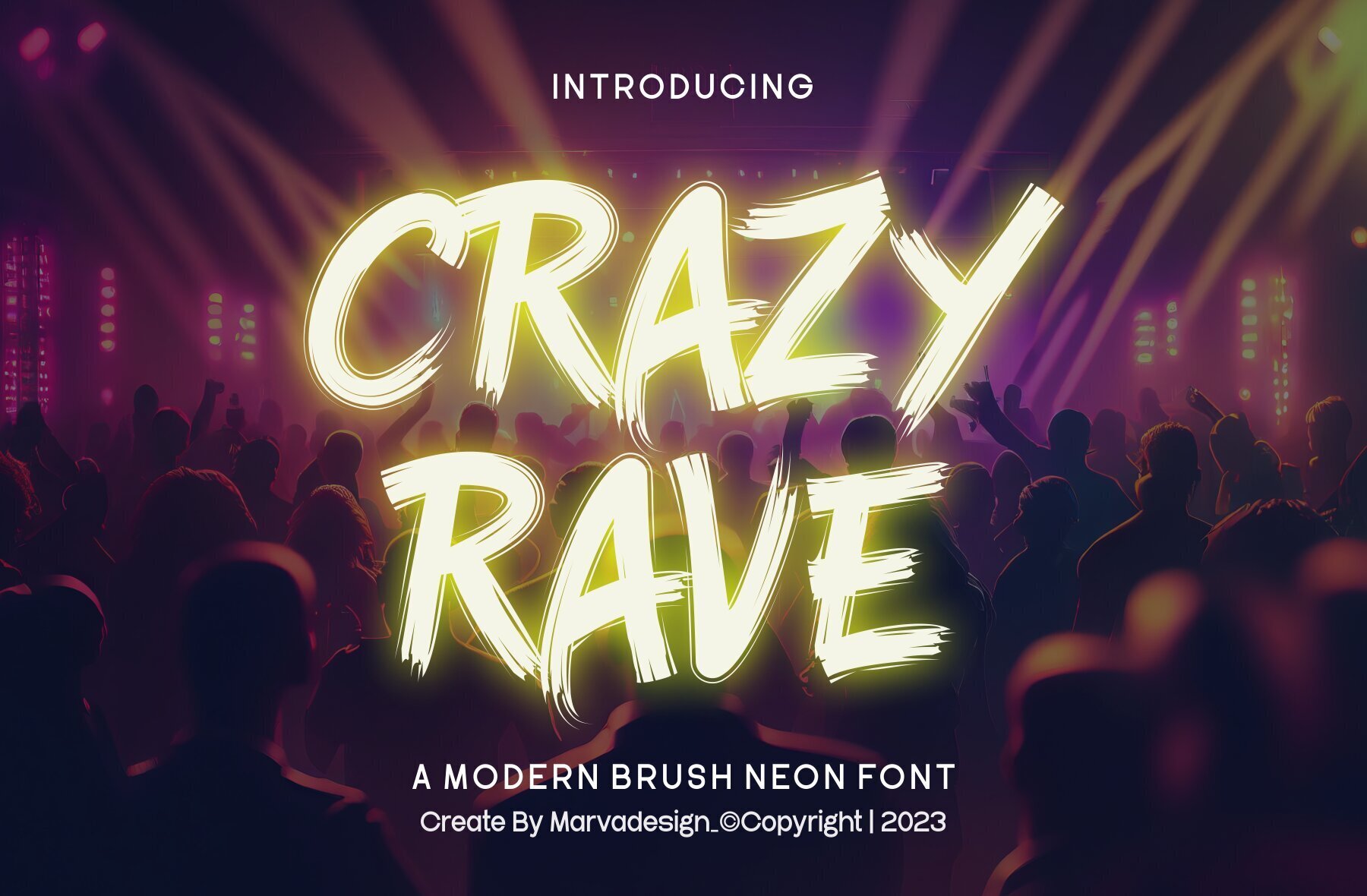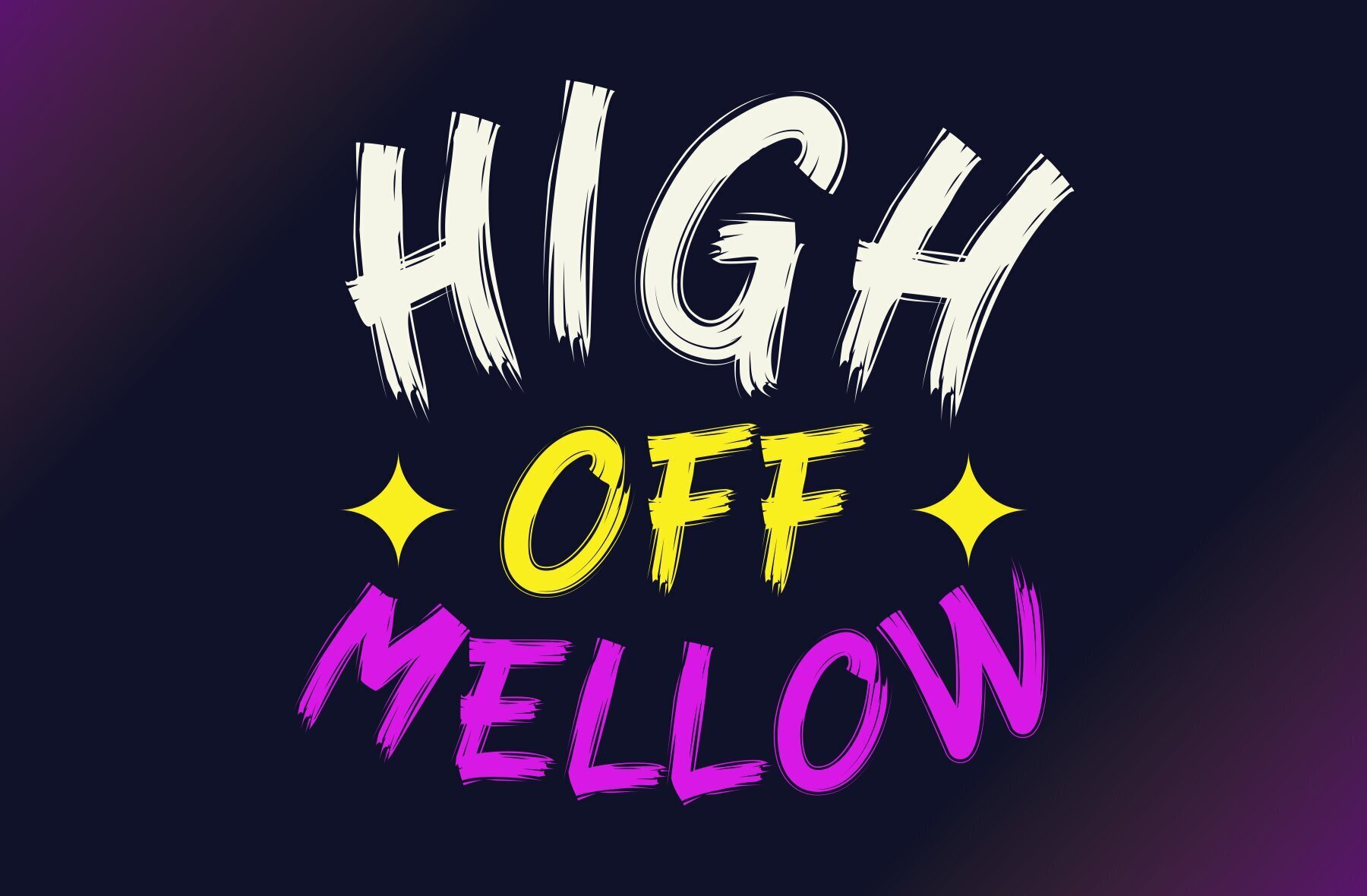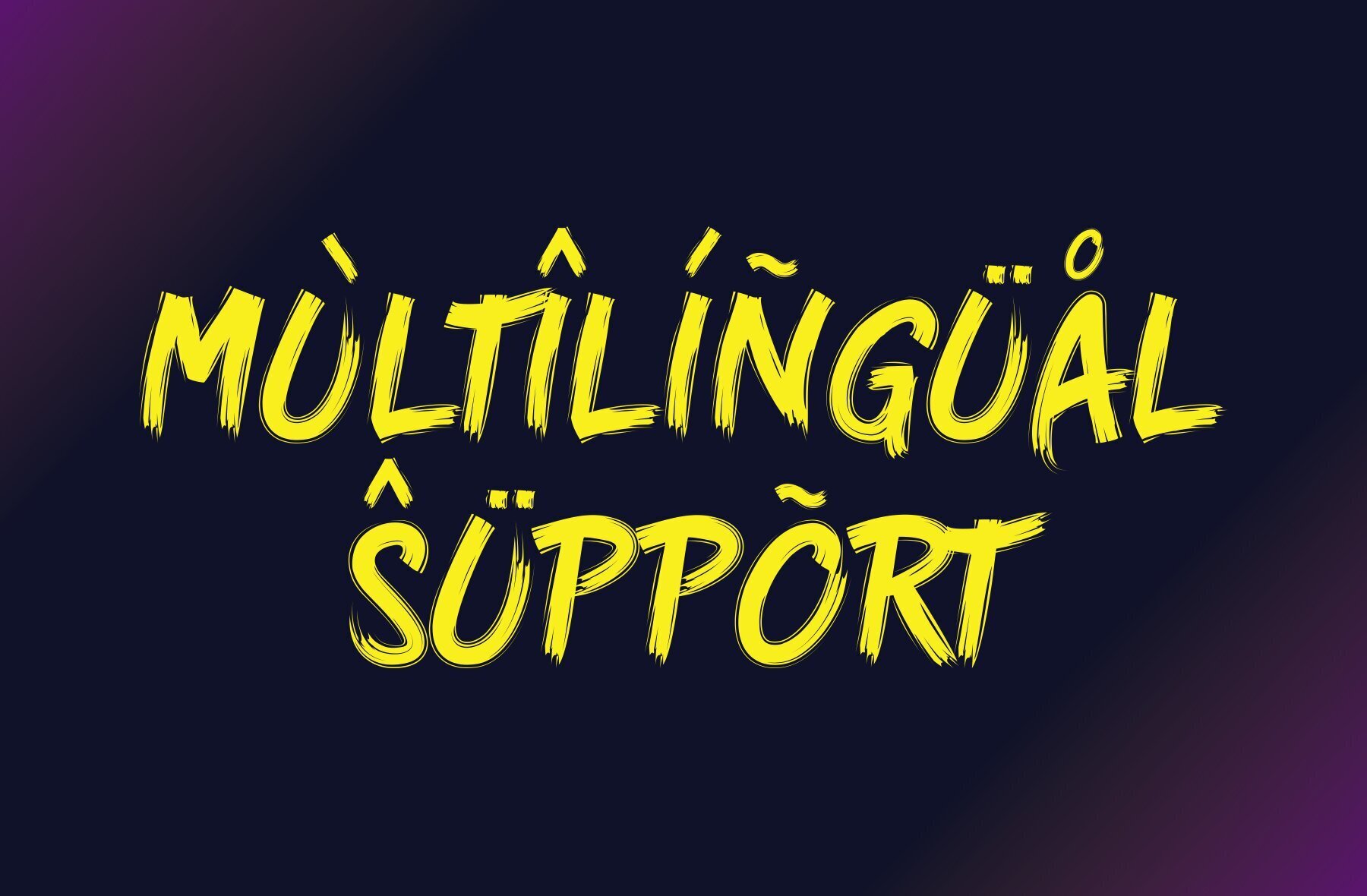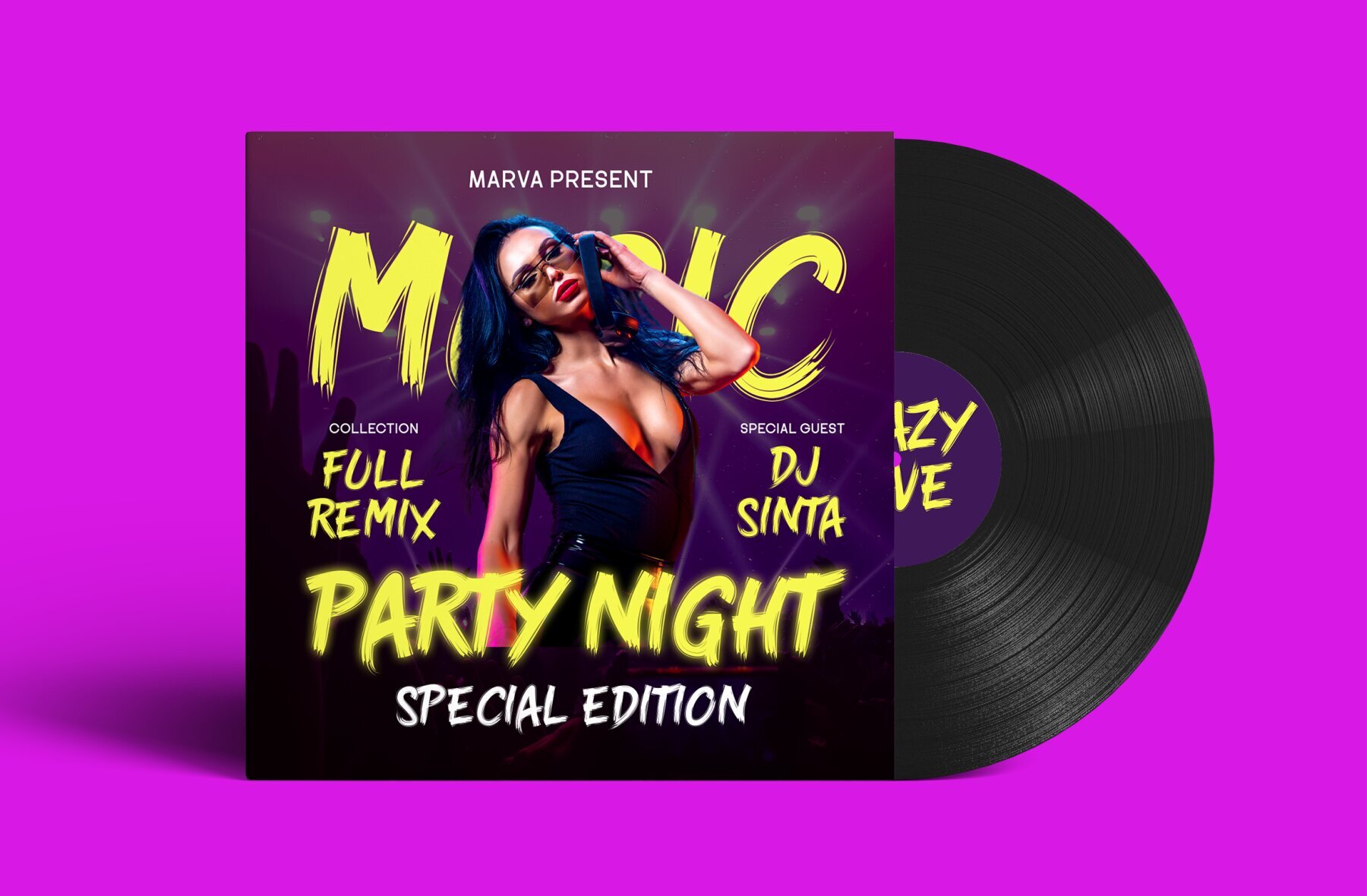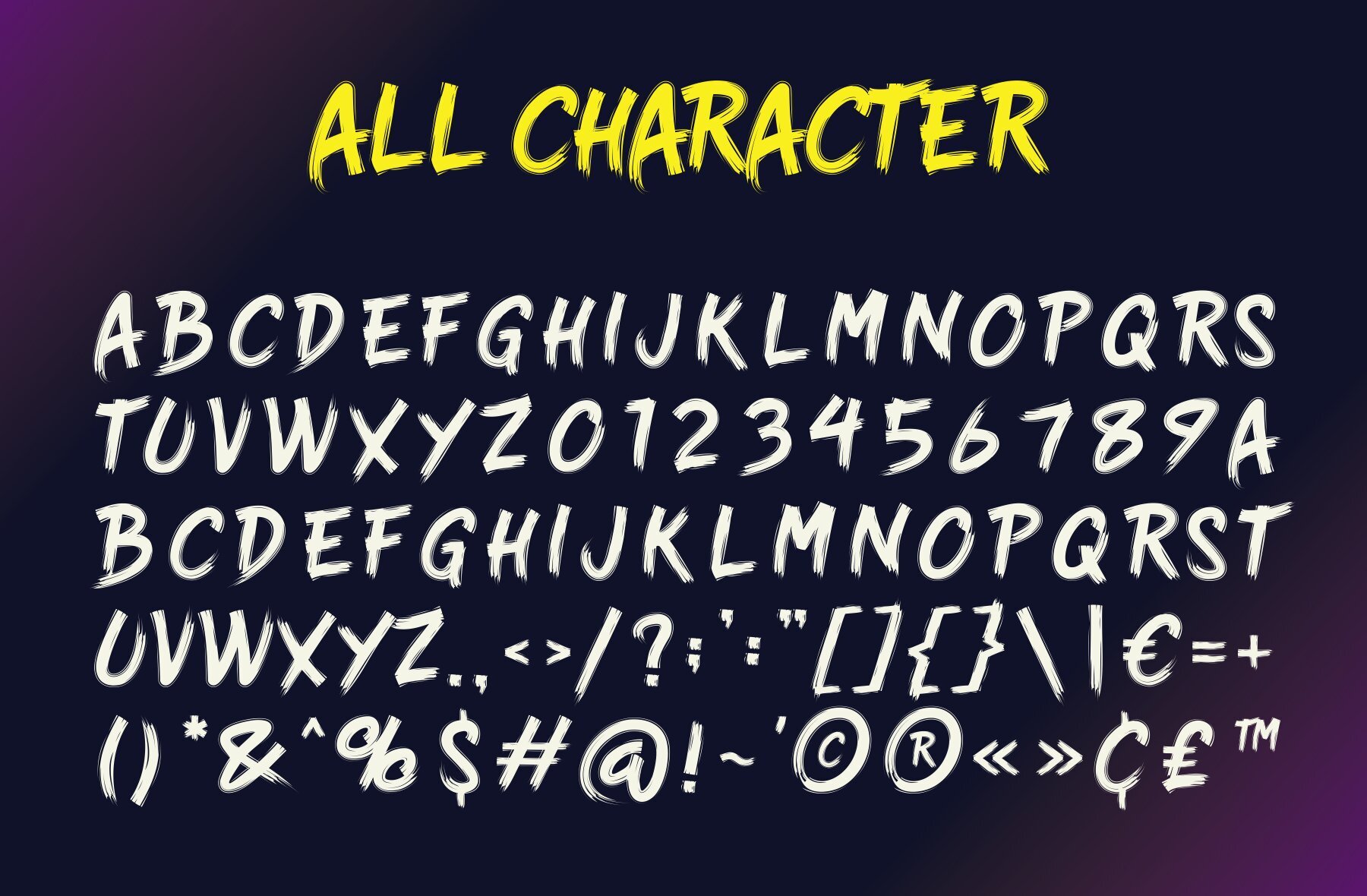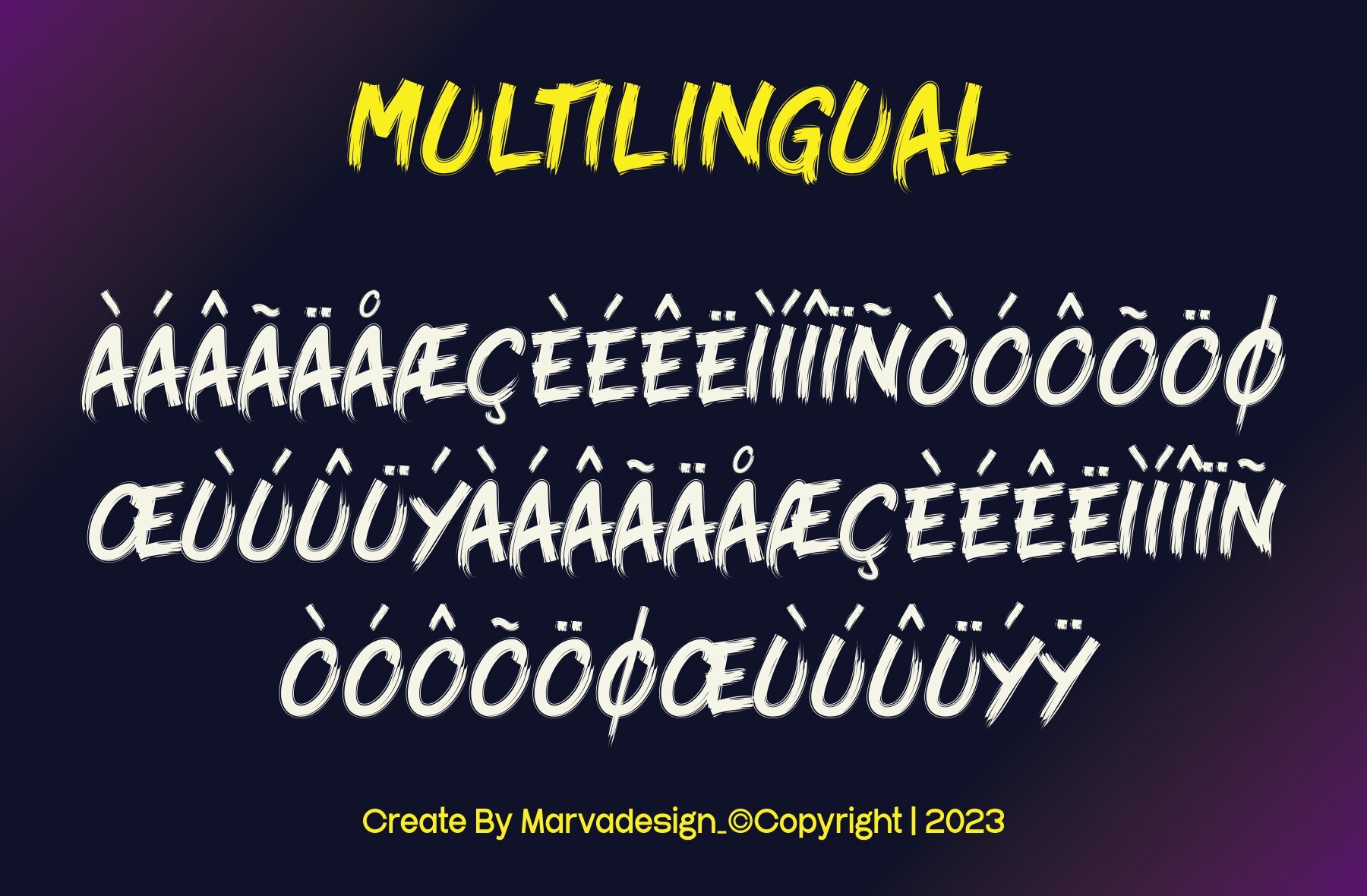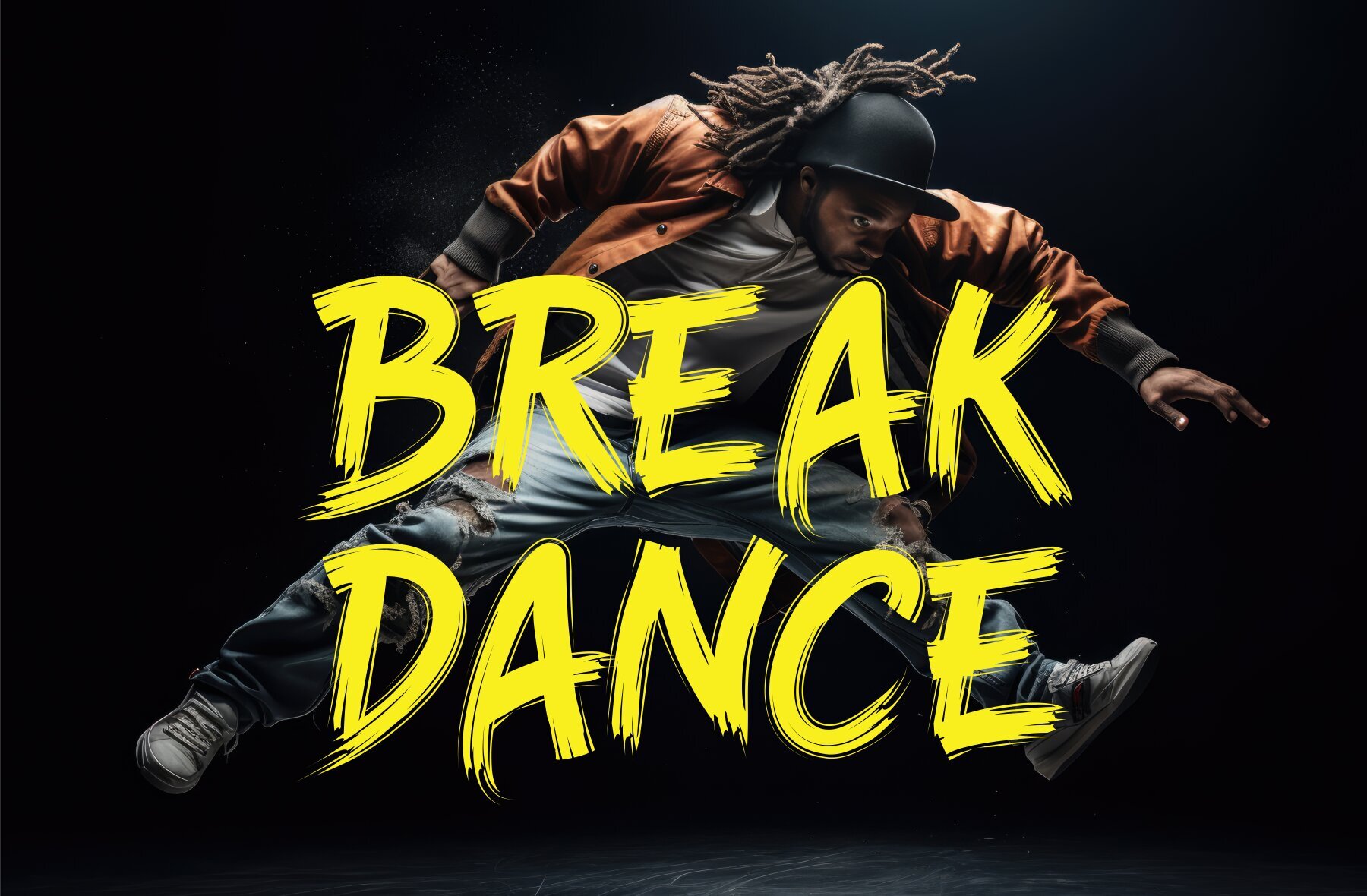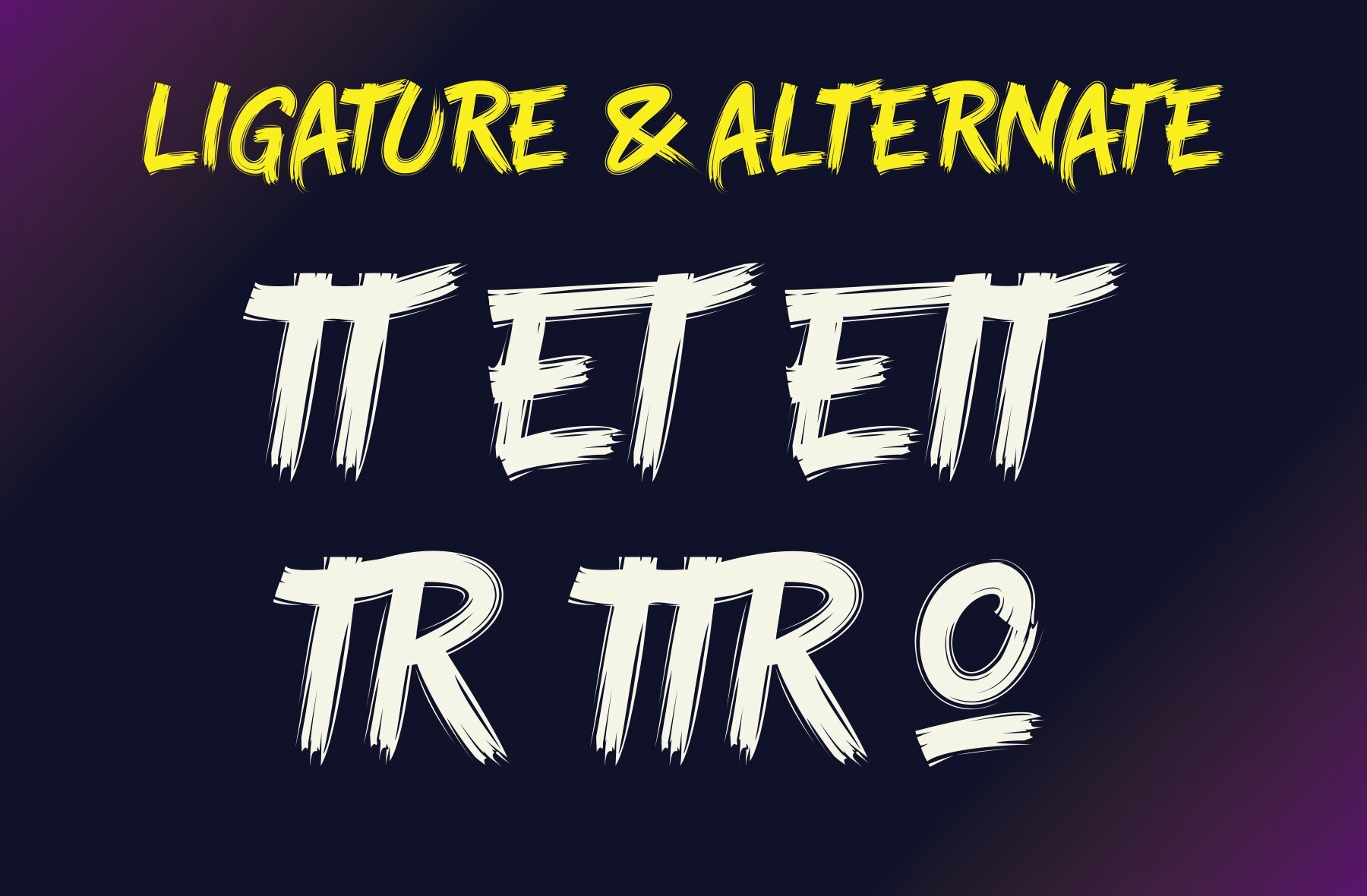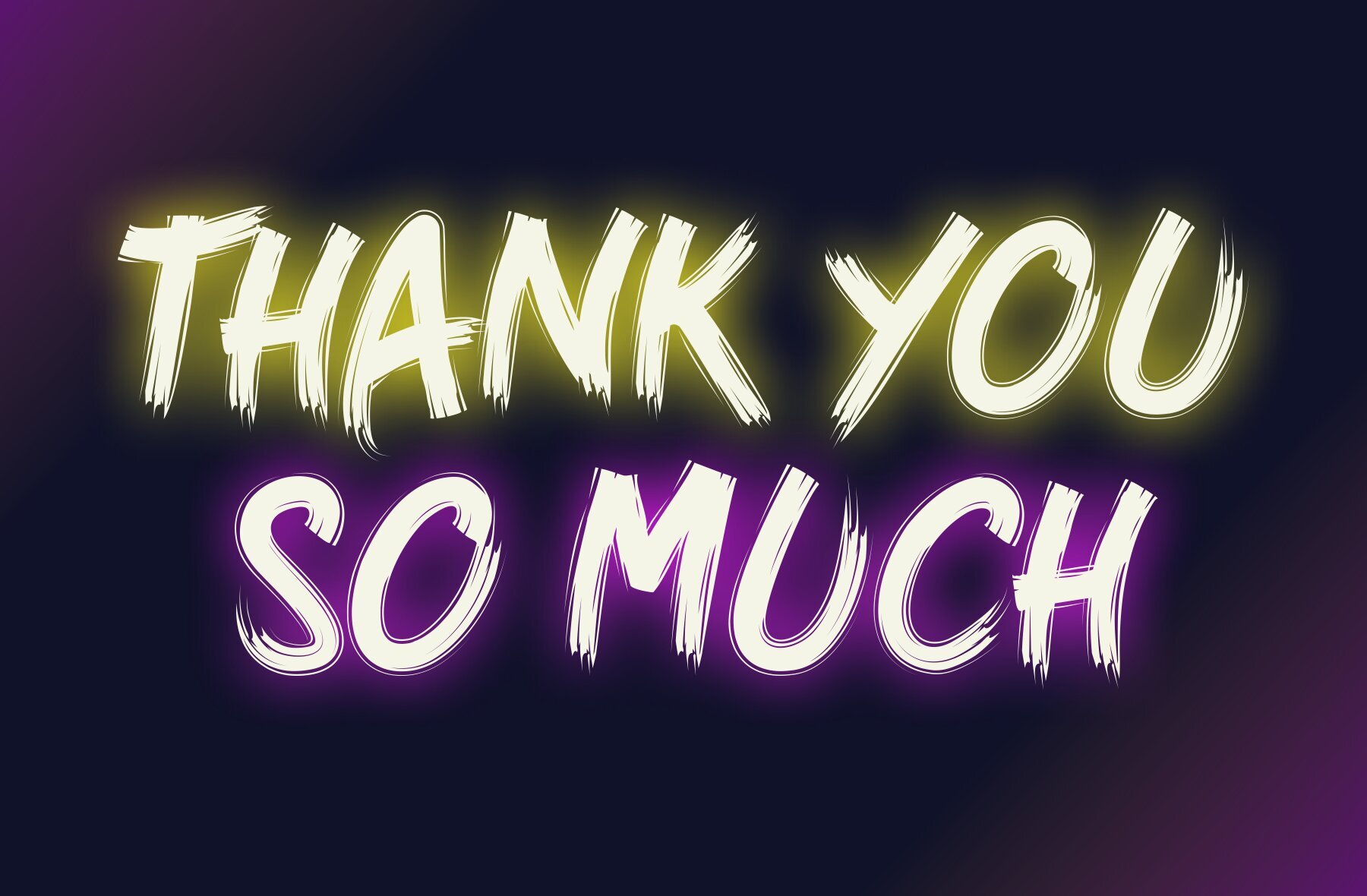
Crazy Rave: Modern Brush Neon Font
Crazy Rave is an authentic display font designed for a modern touch with its unique brush neon style. This font is perfect for diverse branding projects, including logos, templates, product designs, and more, making it stand out in various contexts.
• Uppercase & Lowercase Characters – Offers flexibility in design.
• Multilingual Support – Accommodates a wide range of languages.
• Ligatures – Enhances the font's versatility and appeal.